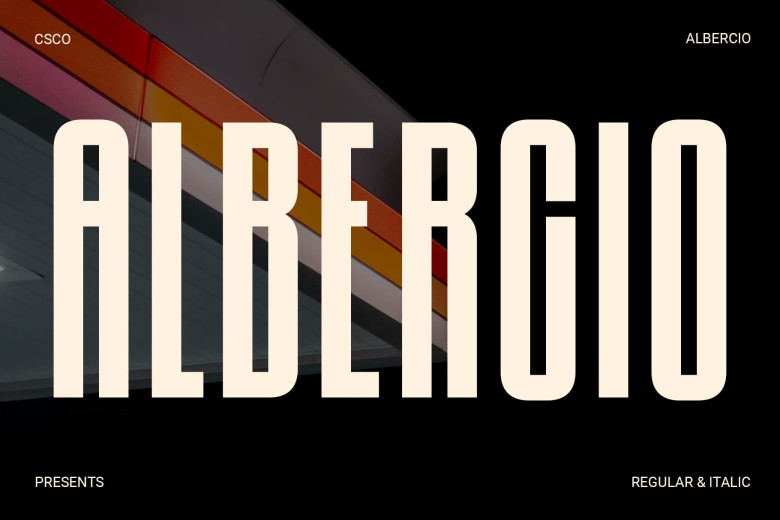
Albercio Font
Albercio Font is an eye-catching condensed sans serif font that blends beauty and impact, offering striking visuals to capture viewers’ attention. Its distinctively narrow shape stands out amongst a sea of fonts while simultaneously making an impressionful statement: smaller spaces don’t mean less clarity!
Albercio excels at all types of designs ranging from headlines to posters that leave a lasting impression. Its versatile use enables designers to experiment with various styles while still maintaining an aesthetically pleasing professional aesthetic.
Elegant Elegance, Effortlessly
Albercio is more than a typeface; it’s an asset for design. With its compact form and impactful visuals, Albercio makes for an appealing display font option that adds character and flexibility to designs. Improve your projects using its impressive simplicity and elegance that make every project memorable and eye-catching!
Albercio Sans Serif Font